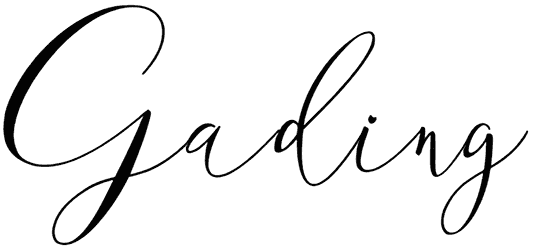
Gading Font
If you ever thought that only thick and bold lines have the power to convey concepts, you are very wrong. Gading has proven that with thin and glamorous lines, you can draw the audience towards you.
This script font hides a human identity within itself that can touch the audience’s heart and jack your message deep into their mind. So, it is very effective for writing love letters, designing wedding cards, and any other lasting works.